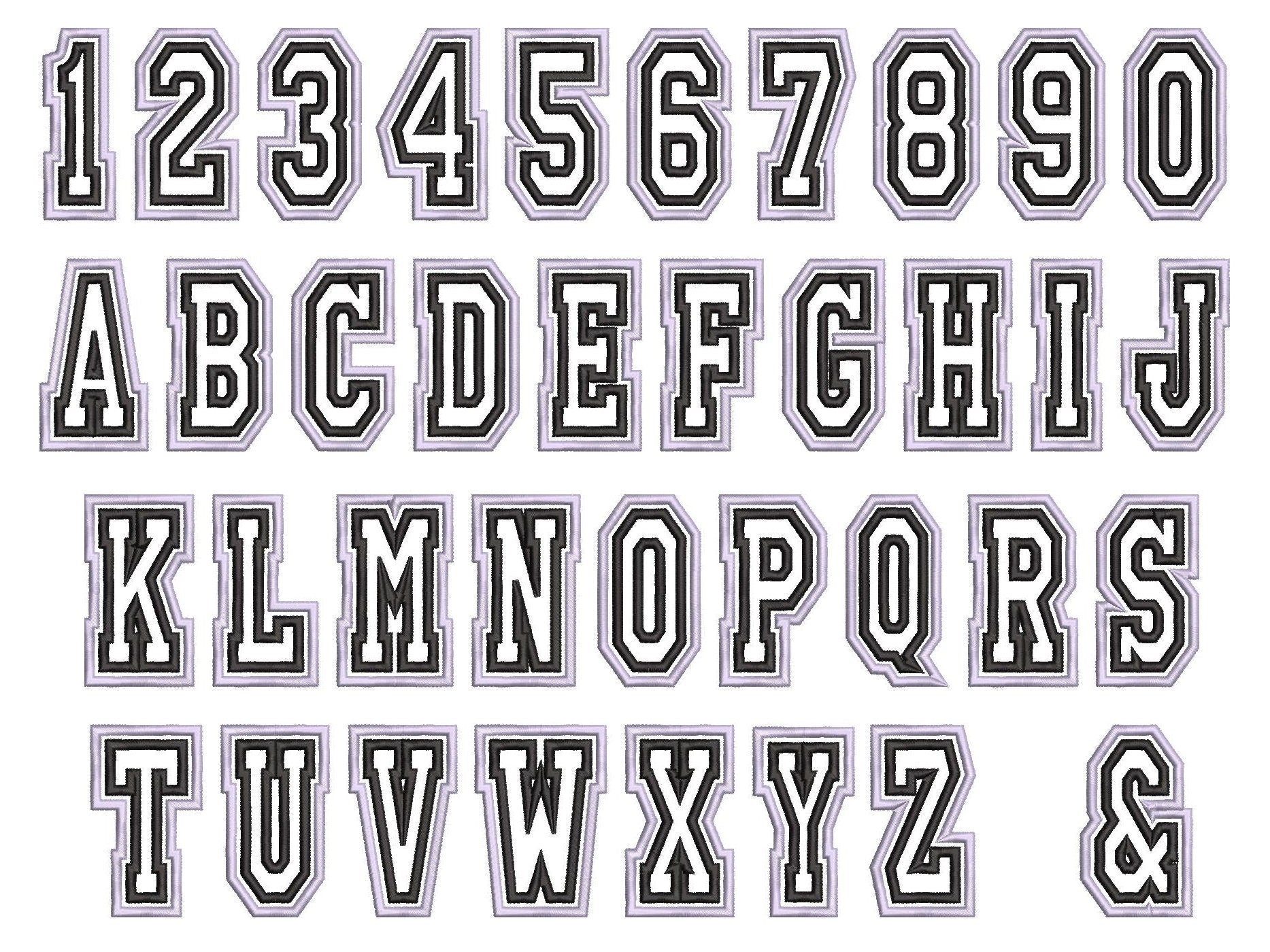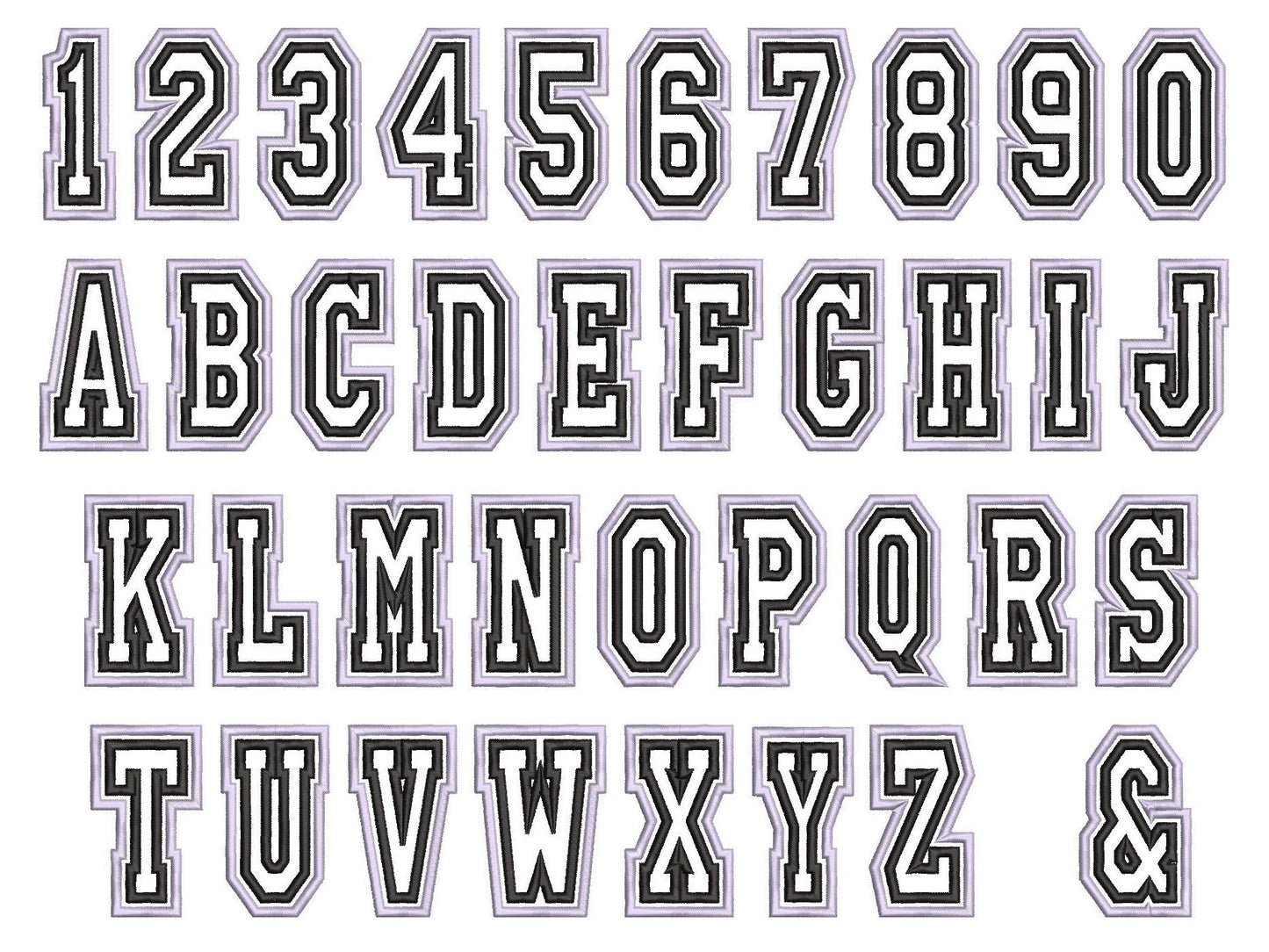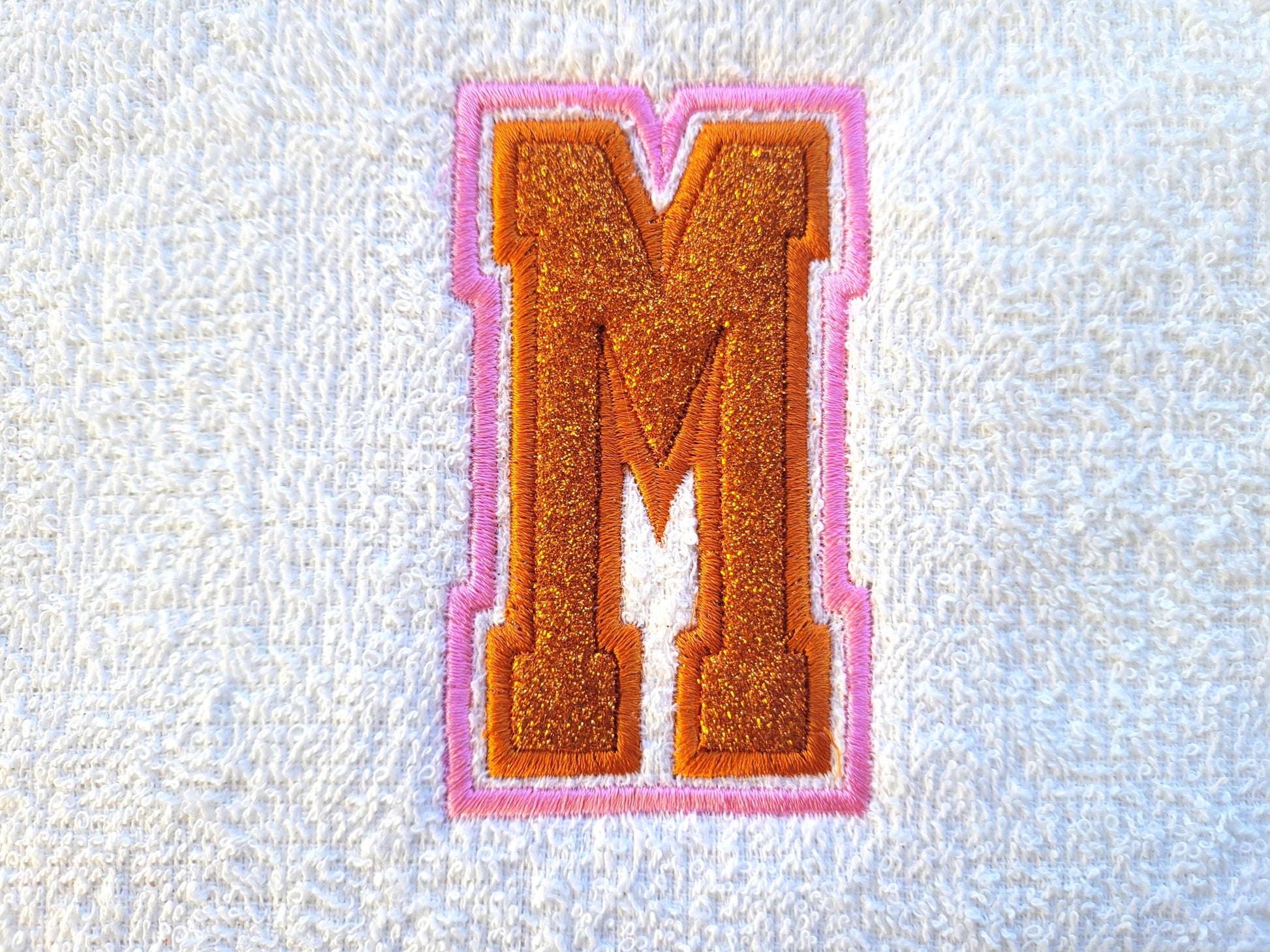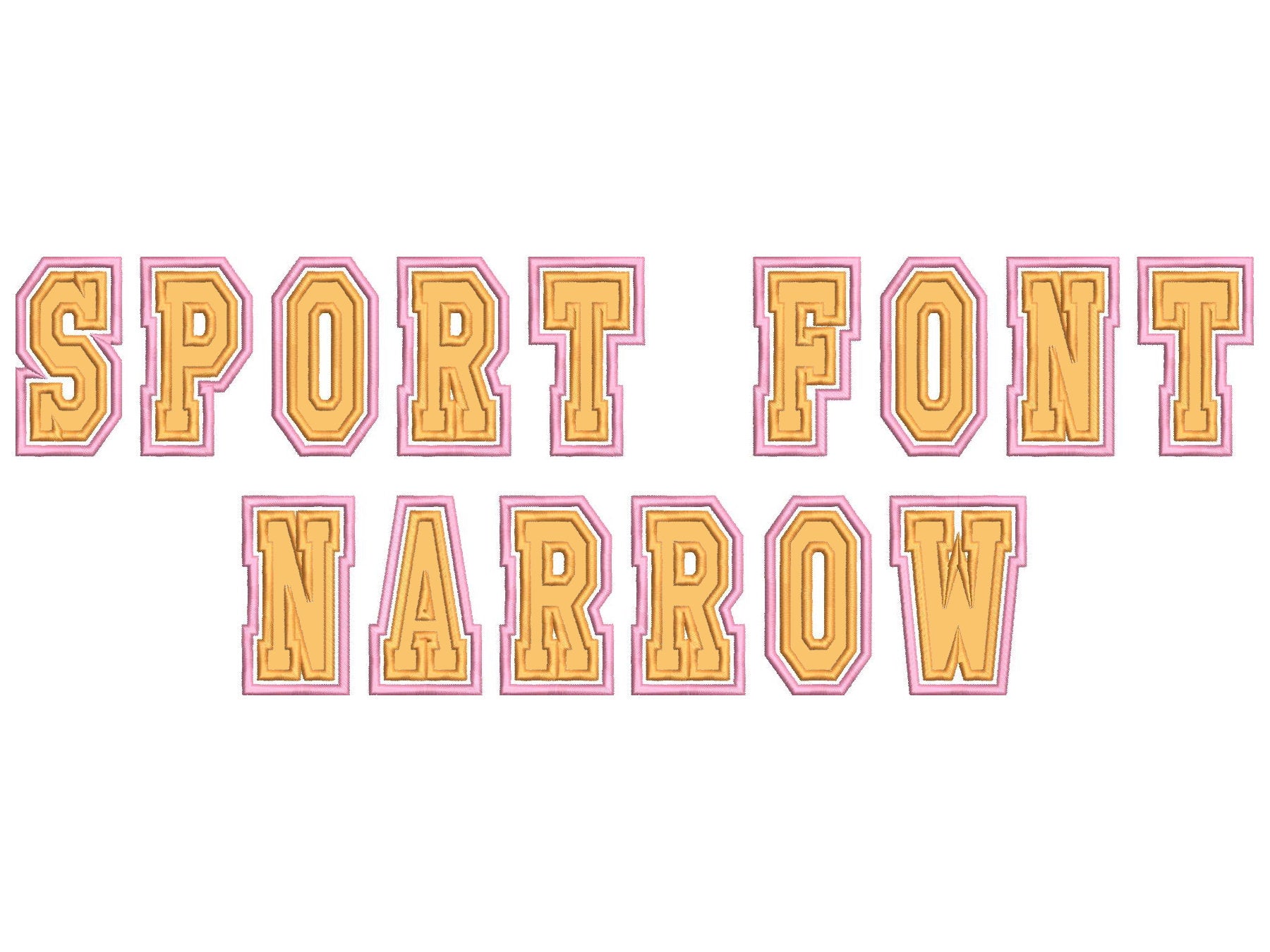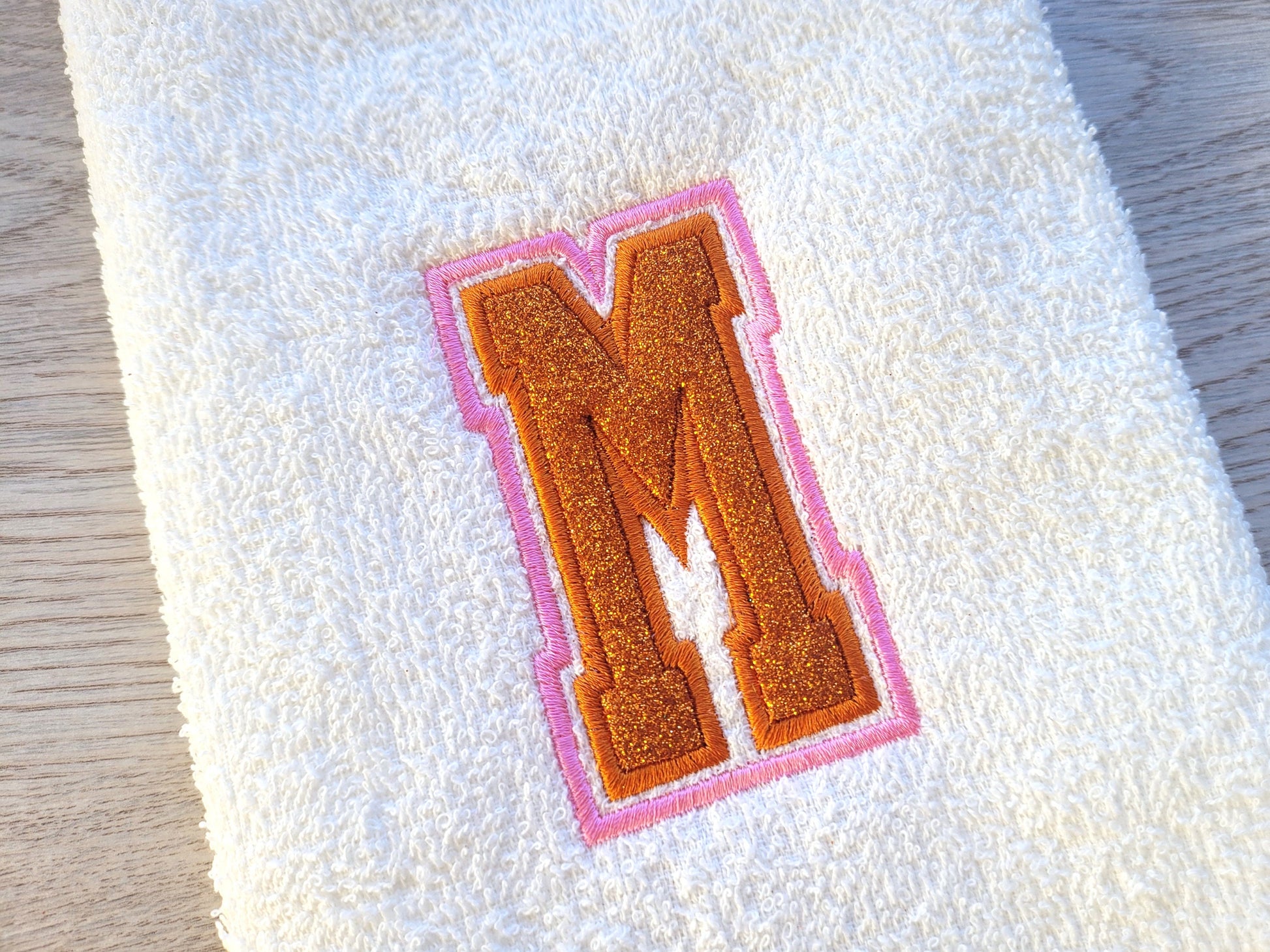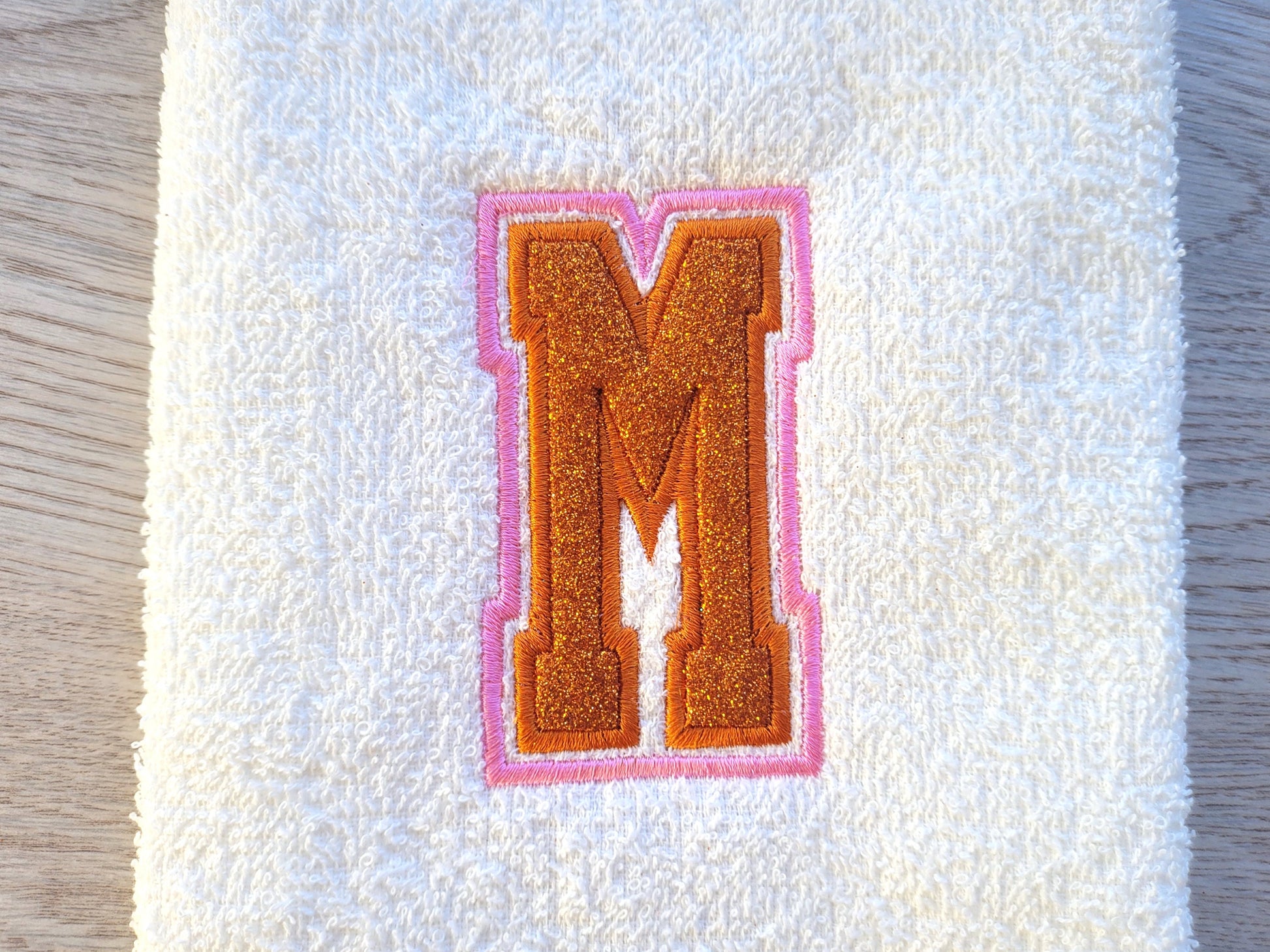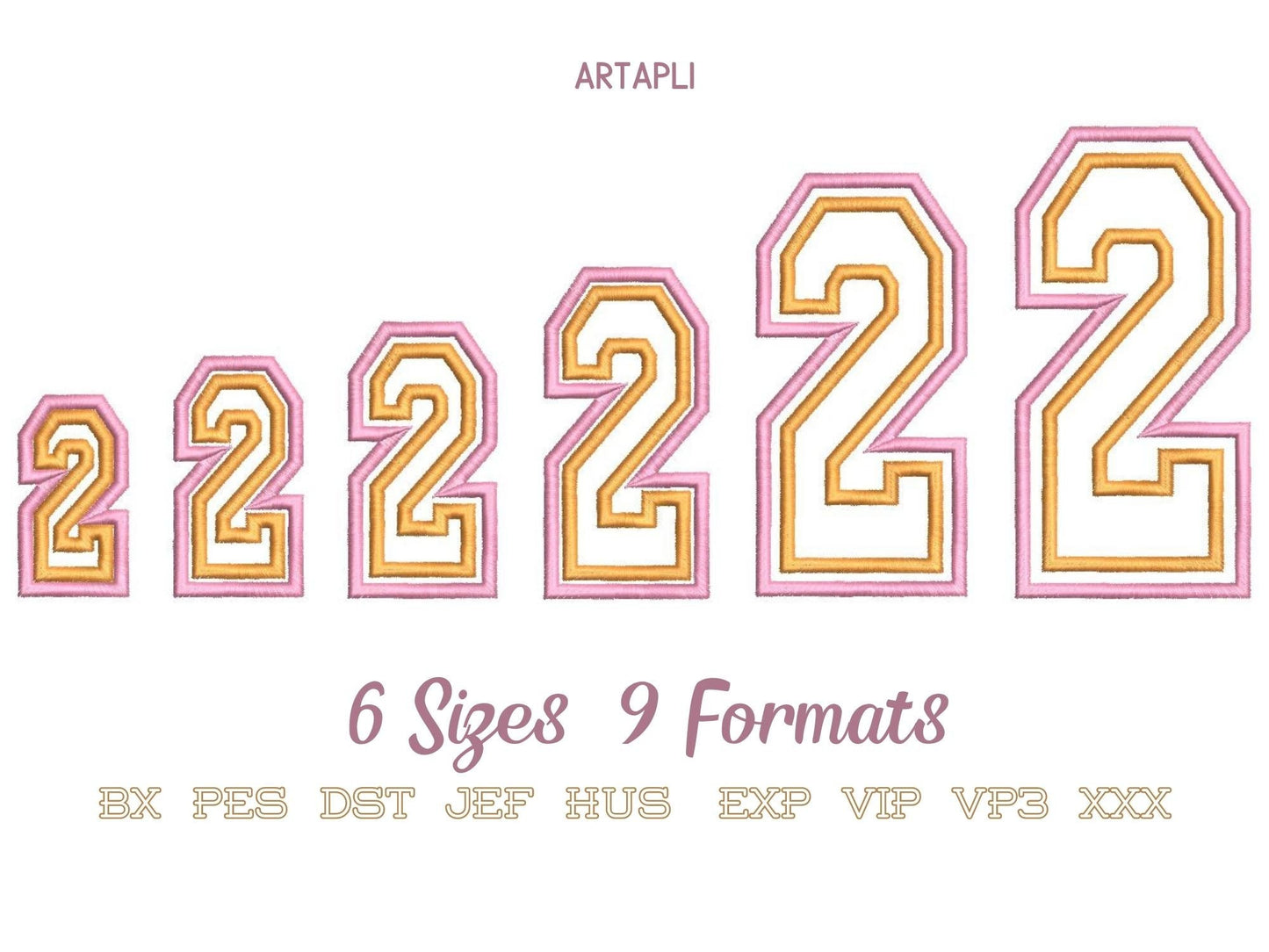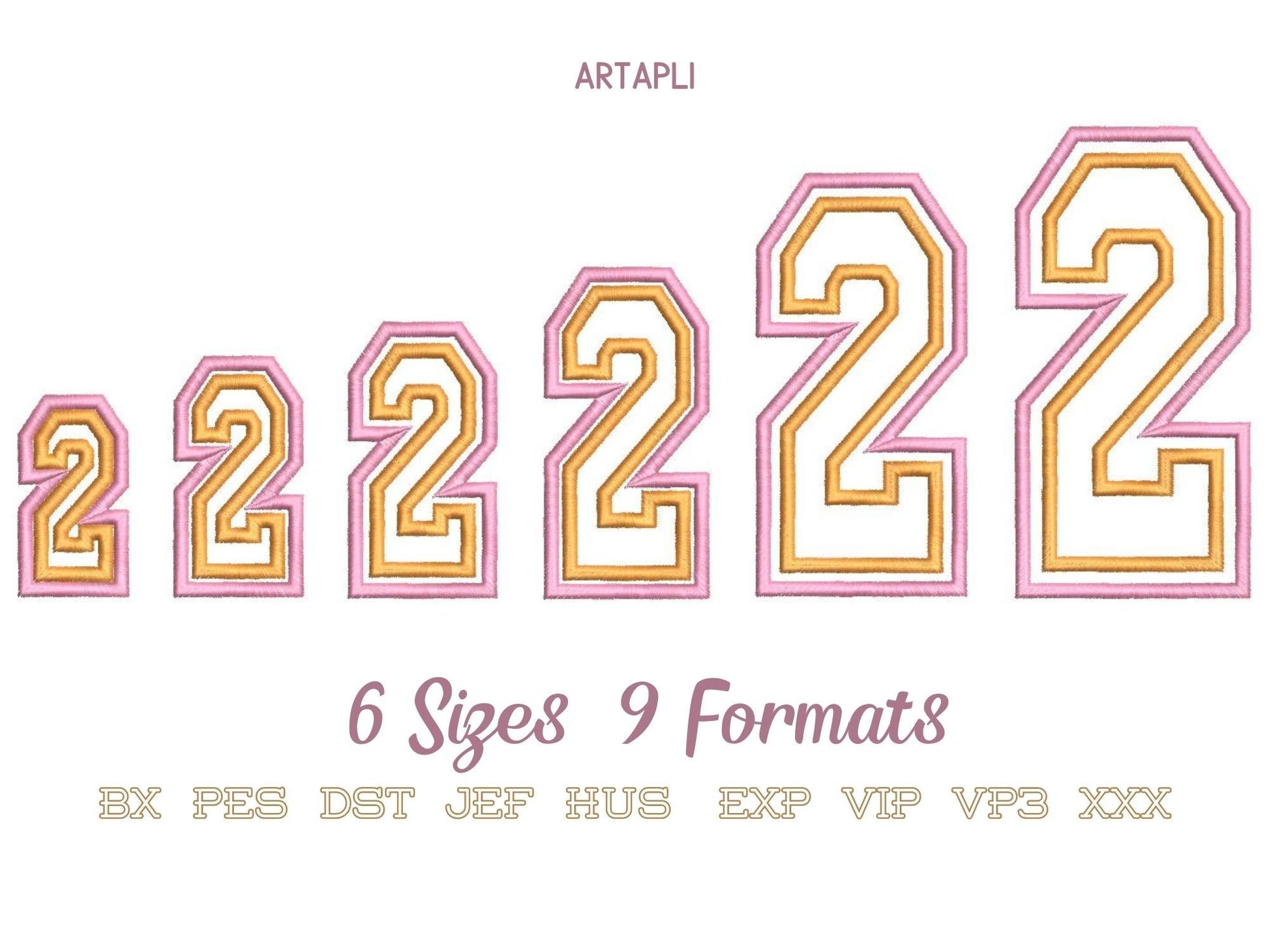
Or click to open the linkA thin, narrow athletic font in double applique with two outlines, for team names and numbers on jerseys and hoodies.
Two applique layers with wide satin outlines. Capital letters, numbers and an ampersand in six sizes: 2, 2.7, 3, 3.8, 4.5 and 5 inches.